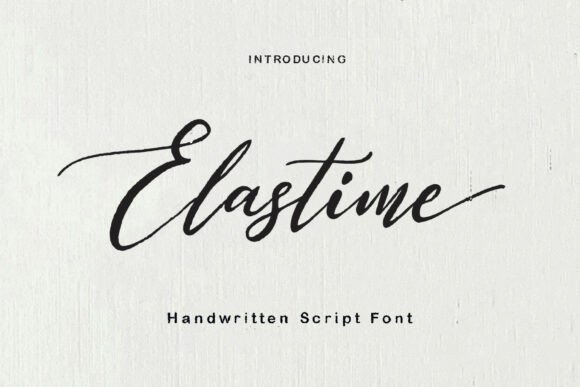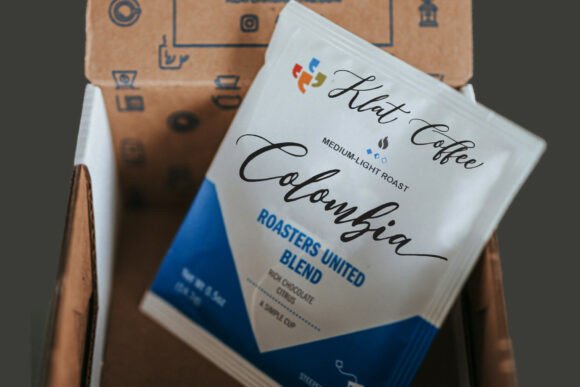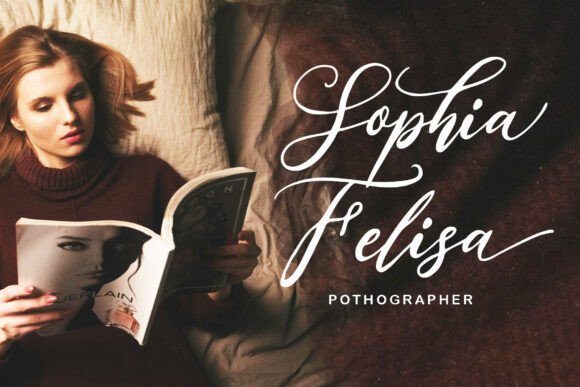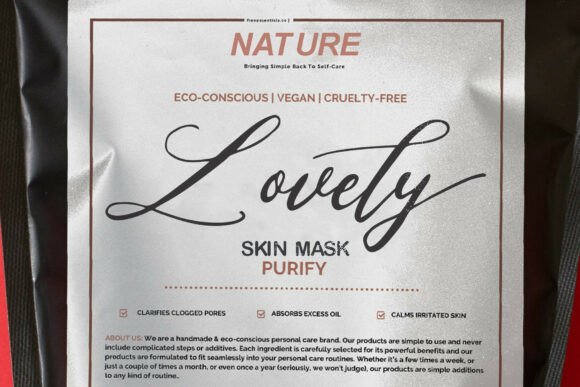
Elastime Font: Elegant Handwritten Script for Branding & Pinterest Design
About the Elastime Font
The Elastime Font is here to transform your projects with its distinctive character and style. Introducing the ‘Elastime Handwritten’ font – the epitome of original allure. Characterized by its distinctive creative spark, this font infuses your concepts with a tapestry of brilliantly unique alternatives. A strikingly artistic solution, the handwritten style of this font harmoniously blends authenticity with sophistication. The ‘Elastime Handwritten’ font is a quintessential instrument that encapsulates your imaginative flair. From branding to logos, magazine layouts to invitations, this font carries a versatile appeal that enhances endless creative possibilities.
Elastime Font Usage Examples
Elastime Font Example